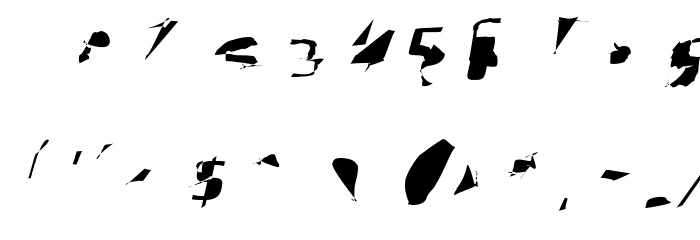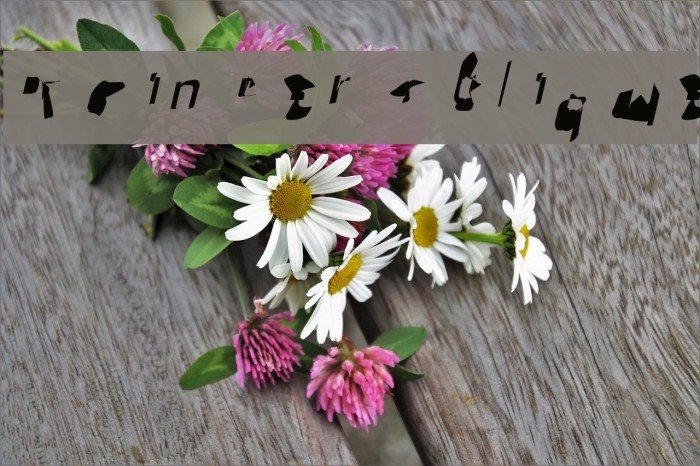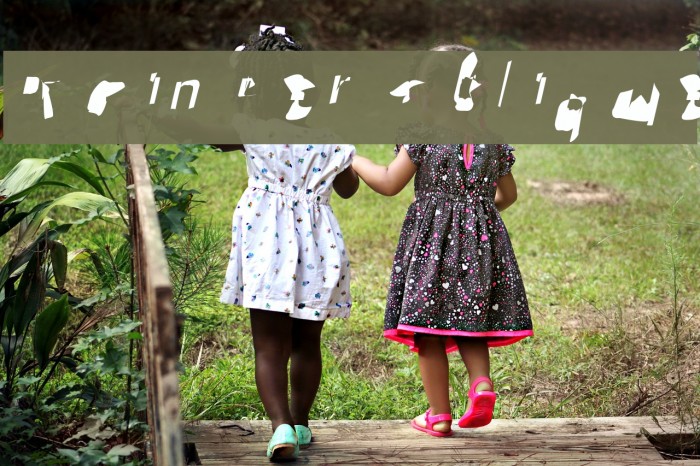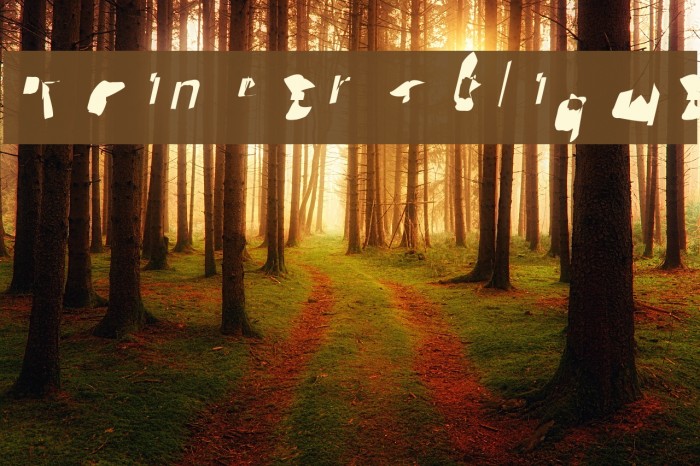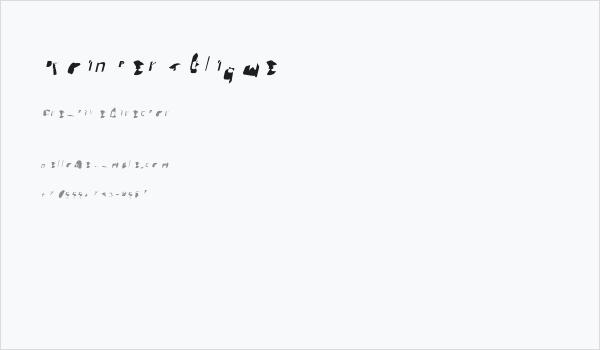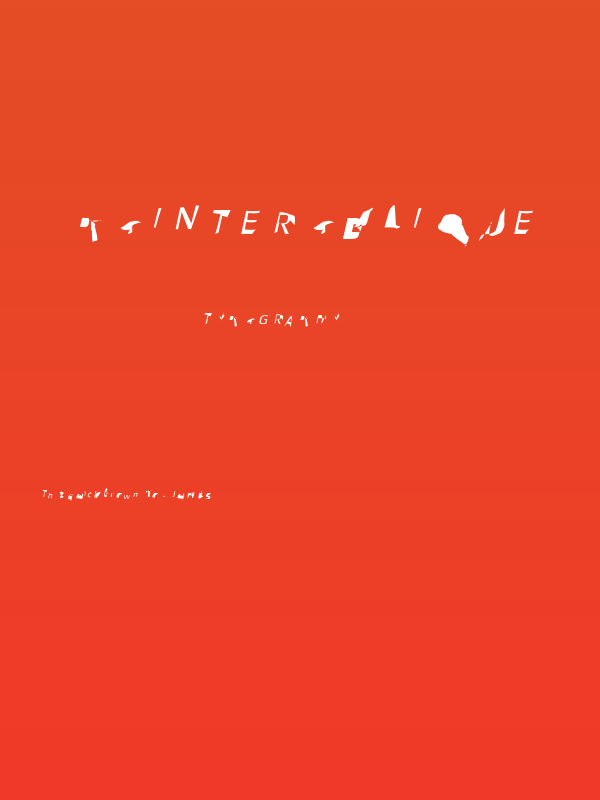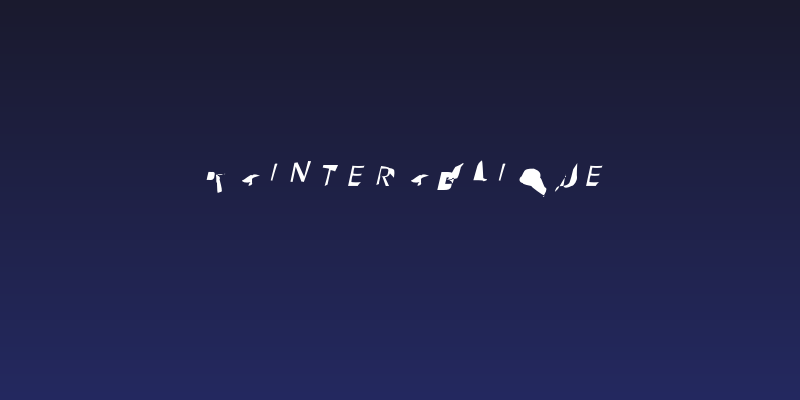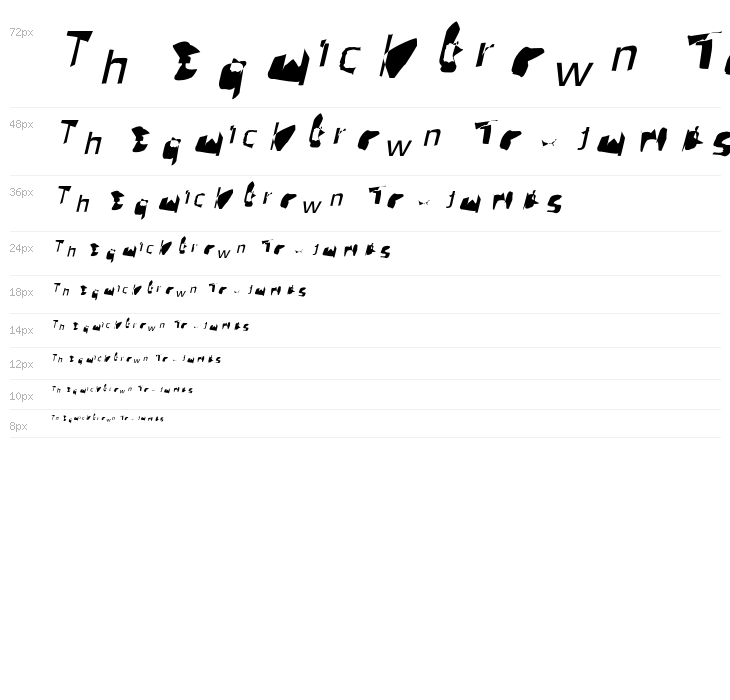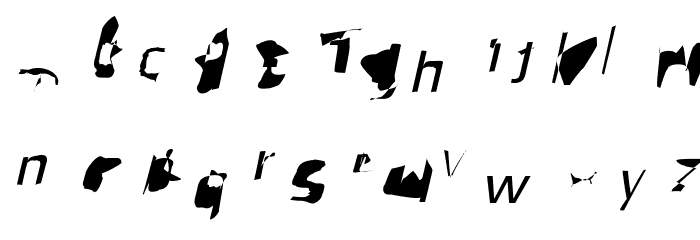
Pointer Oblique Font
Pointer Oblique Description
This font exhibits a highly abstract and fragmented style, characterized by sharp angles and irregular shapes. The letters are heavily distorted, creating a chaotic and dynamic appearance. The strokes are bold and vary significantly in thickness, contributing to a high contrast look. The overall design is unconventional, making it stand out with its unique and artistic flair. This font is not suitable for readability but rather for artistic expression or experimental design projects. Its oblique orientation adds to the sense of movement and energy, making it ideal for avant-garde or cutting-edge visual presentations.
| Overall Style | Modern, Abstract |
| Use Case | Logos, Artistic displays, Experimental design |
| Proposed Projects | Ideal for experimental design projects, avant-garde art pieces, or any creative work that embraces chaos and abstraction. |